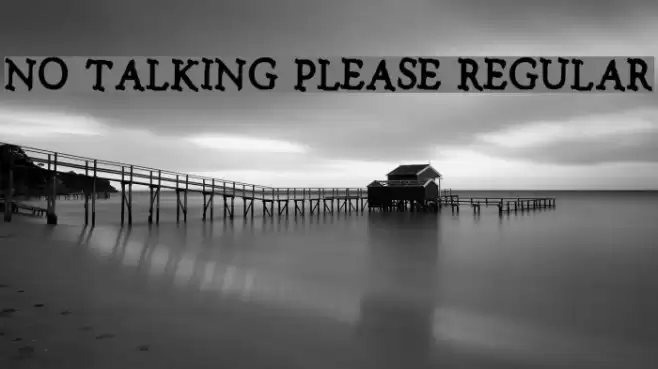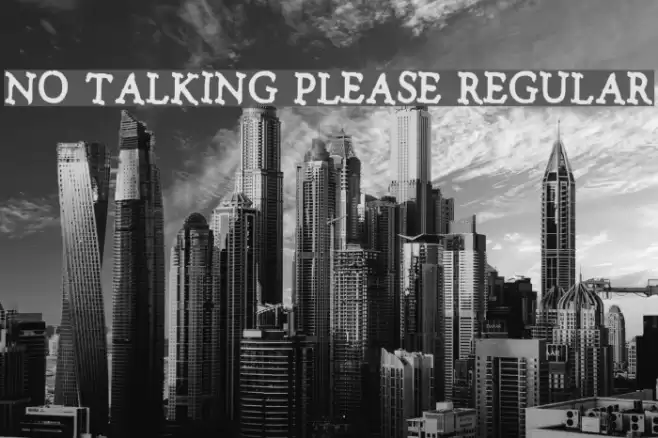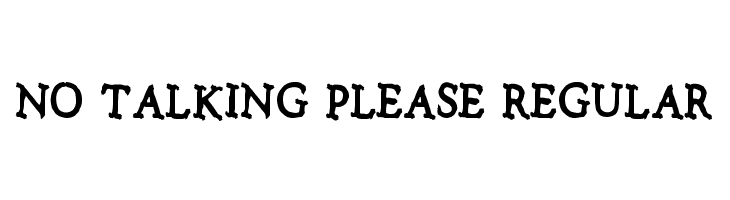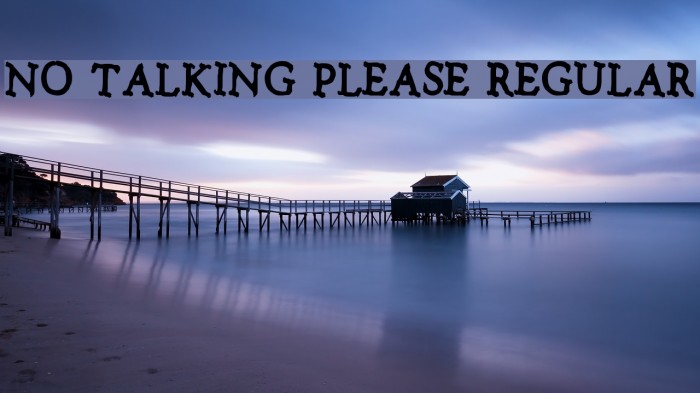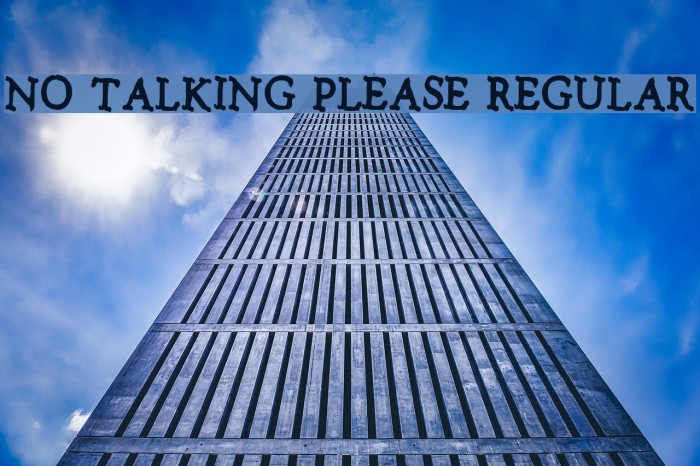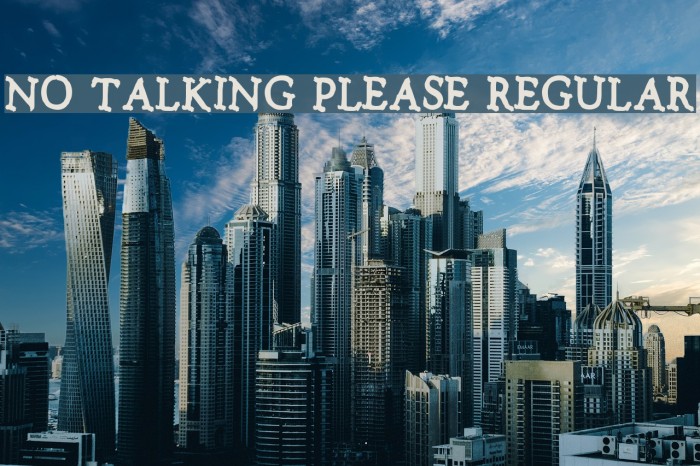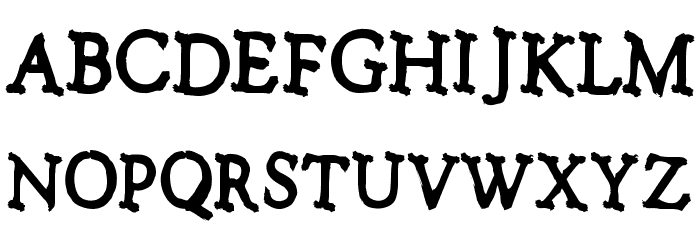
No talking please Regular Font
No talking please Regular Description
This font features a bold and playful design with a slightly distressed appearance, giving it a hand-drawn feel. The characters are thick and robust, with uneven edges that add a touch of whimsy and character. The uppercase letters are prominent and eye-catching, making them suitable for attention-grabbing headlines or titles. The overall style is reminiscent of vintage or retro designs, with a modern twist that makes it versatile for various creative projects. The font's unique style is both decorative and functional, providing a distinctive look that stands out.
A bold, playful font with a distressed, hand-drawn appearance from Uncategorized fonts.
- Proposed Projects: Ideal for posters, logos, branding, and any project requiring a bold, vintage-inspired look.
- Overall Style: Vintage